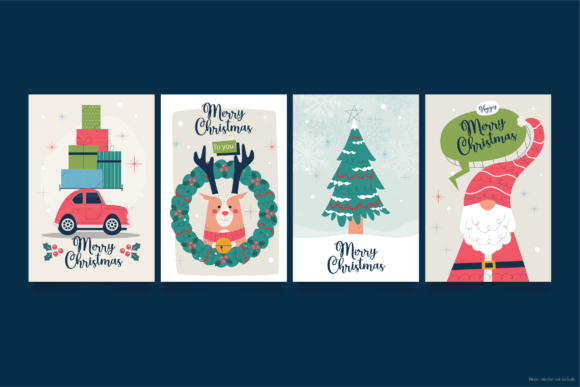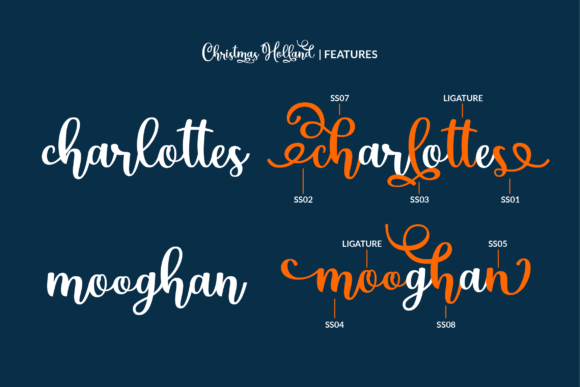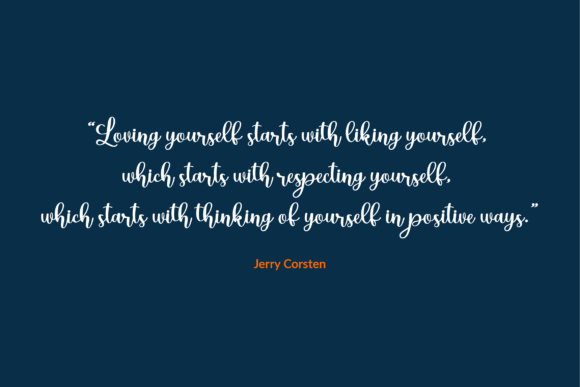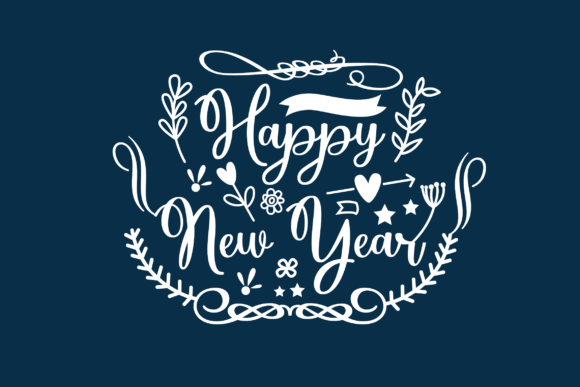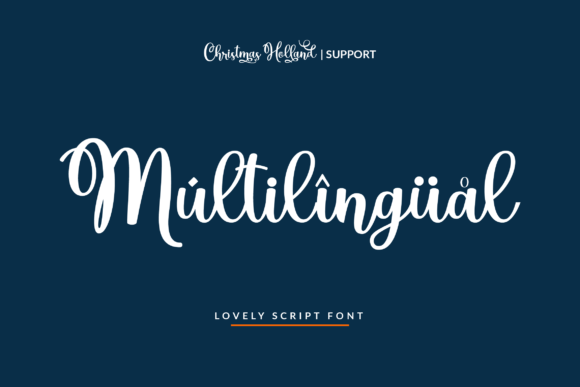
Introducing Christmas Holland Font: The Perfect Addition to Your Design Collection
Are you looking for a beautiful and romantic handwritten font to add a touch of elegance to your designs? Look no further than Christmas Holland Font! This stunning font is perfect for a variety of design projects, including thank you cards, quotes, wedding invitations, greeting cards, business cards, logos, and more.
What Makes Christmas Holland Font So Special?
Christmas Holland Font is a handcrafted, handwritten font that exudes a sense of romance and sophistication. Its beautiful, flowing lines and delicate curves make it perfect for designs that require a touch of elegance and whimsy. Whether you’re creating a wedding invitation, a thank you card, or a business logo, this font is sure to impress.
Key Features of Christmas Holland Font
- Beautiful Handwritten Design: Christmas Holland Font is a carefully crafted handwritten font that looks like it was written with a pen. Its unique and elegant design makes it perfect for a variety of design projects.
- PUA Encoded: This font is PUA (Private Use Area) encoded, which means you can access all the glyphs and swashes easily. This makes it simple to use and customize, even for designers who are new to font editing.
- Multilingual Support: Christmas Holland Font supports multiple languages, making it a great choice for designers who work with clients from around the world.
Use Cases for Christmas Holland Font
Christmas Holland Font is a versatile font that can be used for a wide range of design projects, including:
- Wedding Invitations: Add a touch of romance and elegance to your wedding invitations with Christmas Holland Font.
- Thank You Cards: Make your thank you cards stand out with this beautiful handwritten font.
- Greeting Cards: Create stunning greeting cards for holidays, birthdays, and other special occasions.
- Business Cards: Use Christmas Holland Font to create unique and memorable business cards that will help you stand out from the competition.
- Logos: Add a touch of elegance and sophistication to your logos with this beautiful font.
Tips for Using Christmas Holland Font
Here are a few tips for getting the most out of Christmas Holland Font:
- Experiment with Font Sizes: Try out different font sizes to see how Christmas Holland Font looks in different contexts.
- Pair with Other Fonts: Experiment with pairing Christmas Holland Font with other fonts to create a unique and eye-catching design.
- Use Swashes and Glyphs: Take advantage of the PUA encoding to access all the glyphs and swashes, and add a touch of elegance to your designs.
Christmas Holland Font is a beautiful and romantic handwritten font that’s perfect for designers and crafters who want to add a touch of elegance to their designs. With its PUA encoding, multilingual support, and instant download, this font is a great choice for a wide range of design projects. Whether you’re creating wedding invitations, thank you cards, or business logos, Christmas Holland Font is sure to impress.